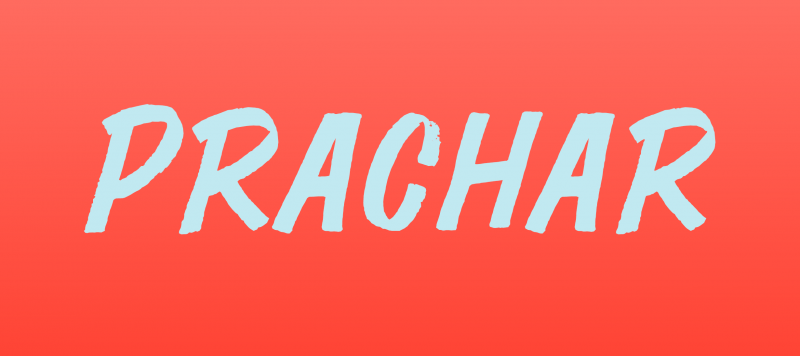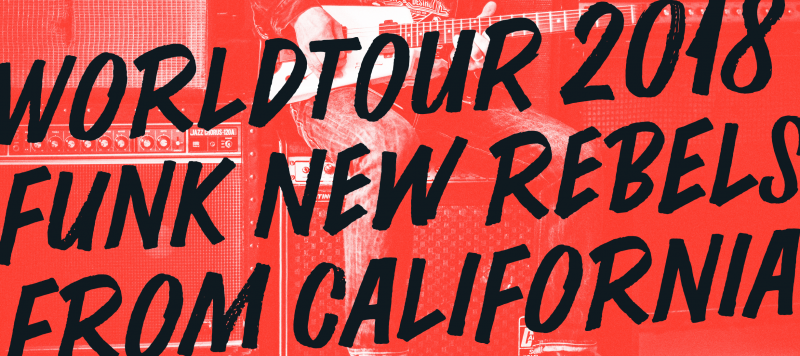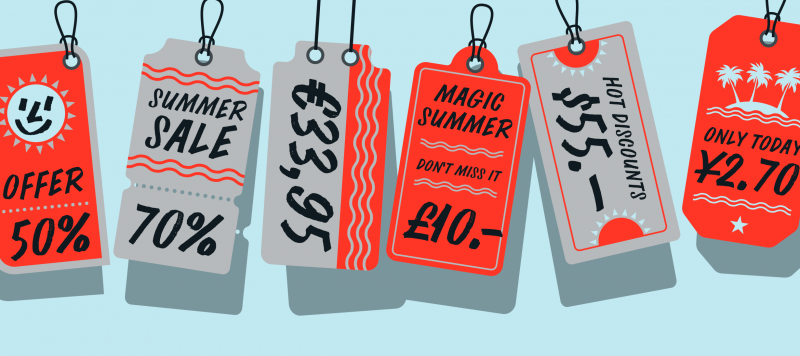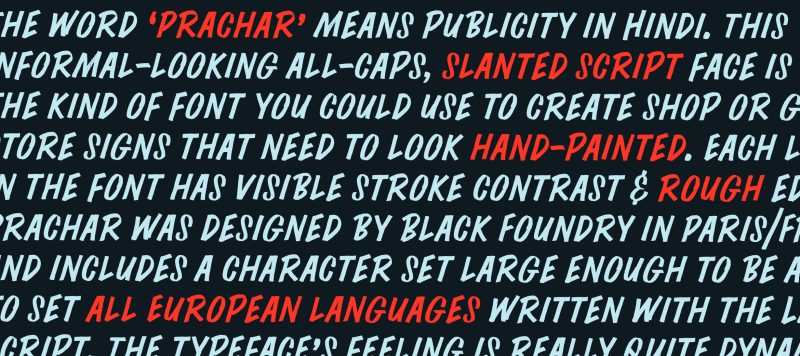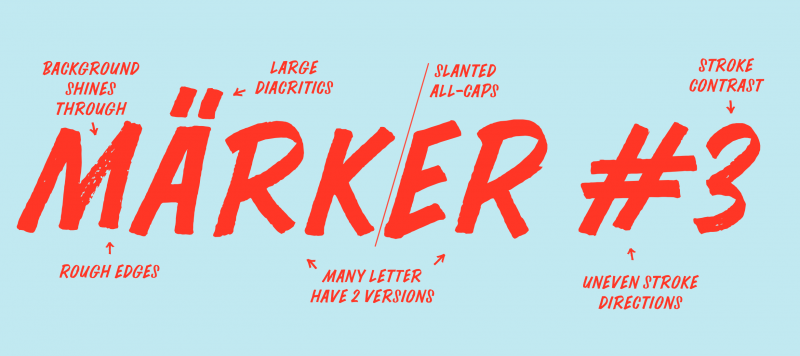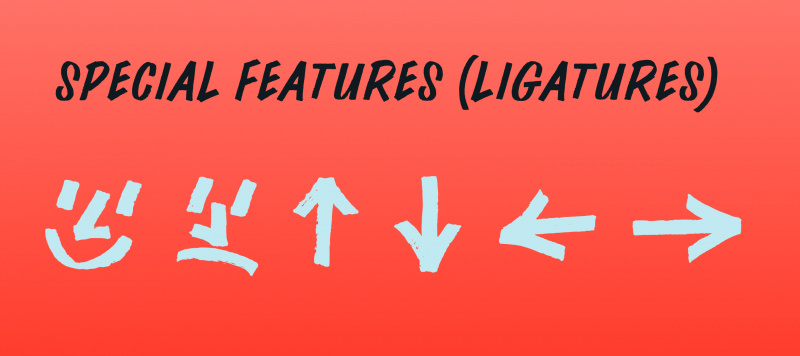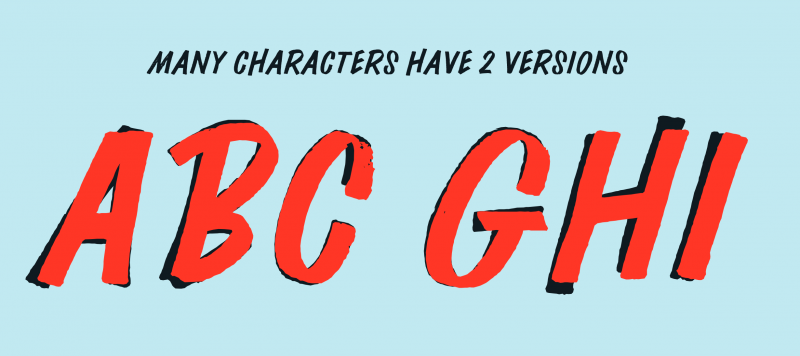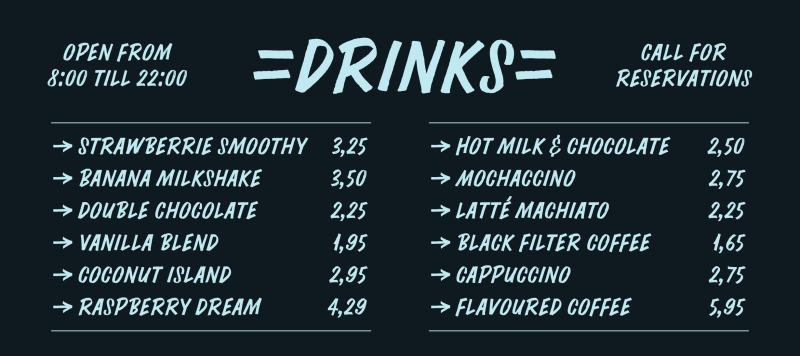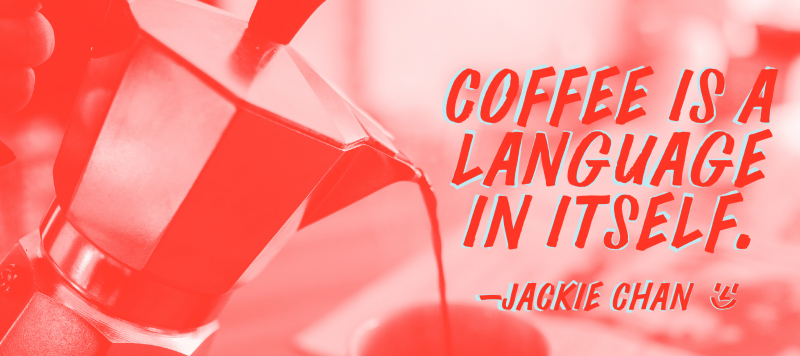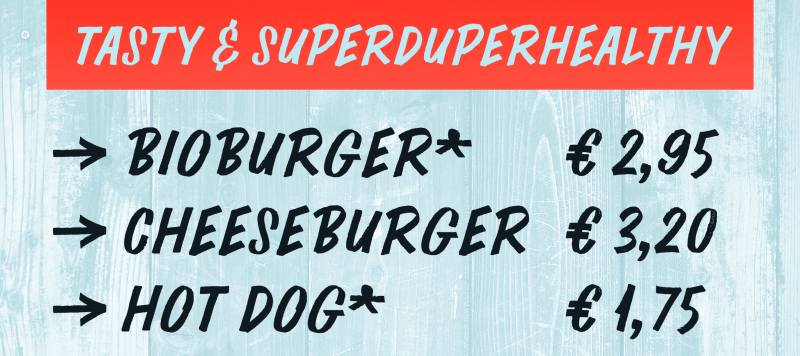
The word ‘Prachar’ means publicity in Hindi. This informal-looking all-caps, slanted script face is exactly the kind of font you could use to create shop or grocery store signs that need to look hand-painted. Each letter in the font has visible stroke contrast and rough edges. Prachar was designed by ITF, and includes a character set large enough to be able to set all European languages written with the Latin script. The typeface’s feeling is really quite dynamic; this is not due to its slant alone, but also to its letterforms’ underlying construction, which really looks like it could have come out of a sign painter’s brush. Although Prachar is an all-caps font, several of the ‘caps’ saved onto the font’s lowercase glyphs feature different forms of the letters than you’ll find on the uppercase keys. Not only do many of Prachar’s letters have rough edges, but they also look ‘roughed’ up. Especially in the ‘B’, ‘C’, ‘M’, and ‘Q’, part of the background will shine through the letterform (this is true both for print and in on-screen use). Prachar’s letters should be set as large as possible.
Classification | Display, Script |